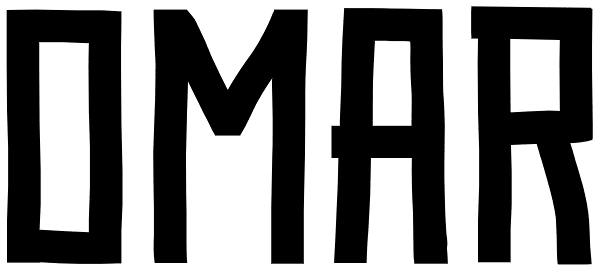
Omar
The Omar Font was completely created by graphic tablet.Omar font family comes in two weights; Normal and Italic. They're all capital but lowercase and capital letters are different from each other.It is legible in small type sizes. With its...